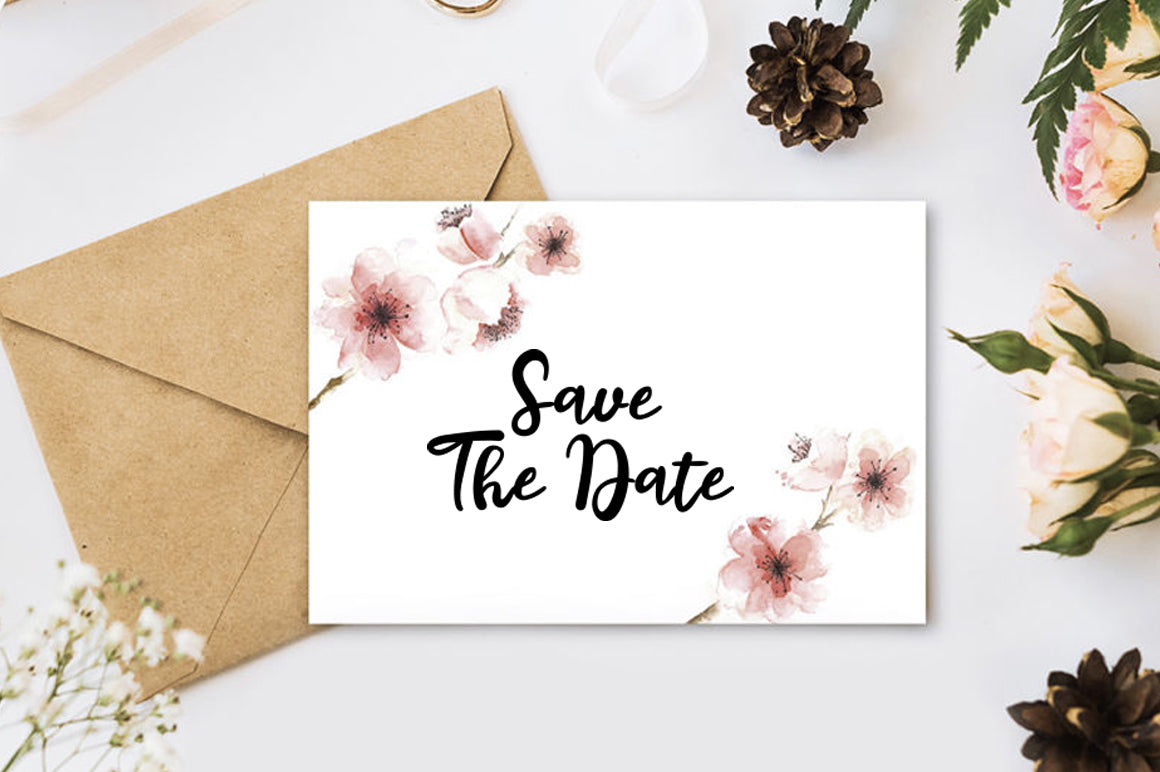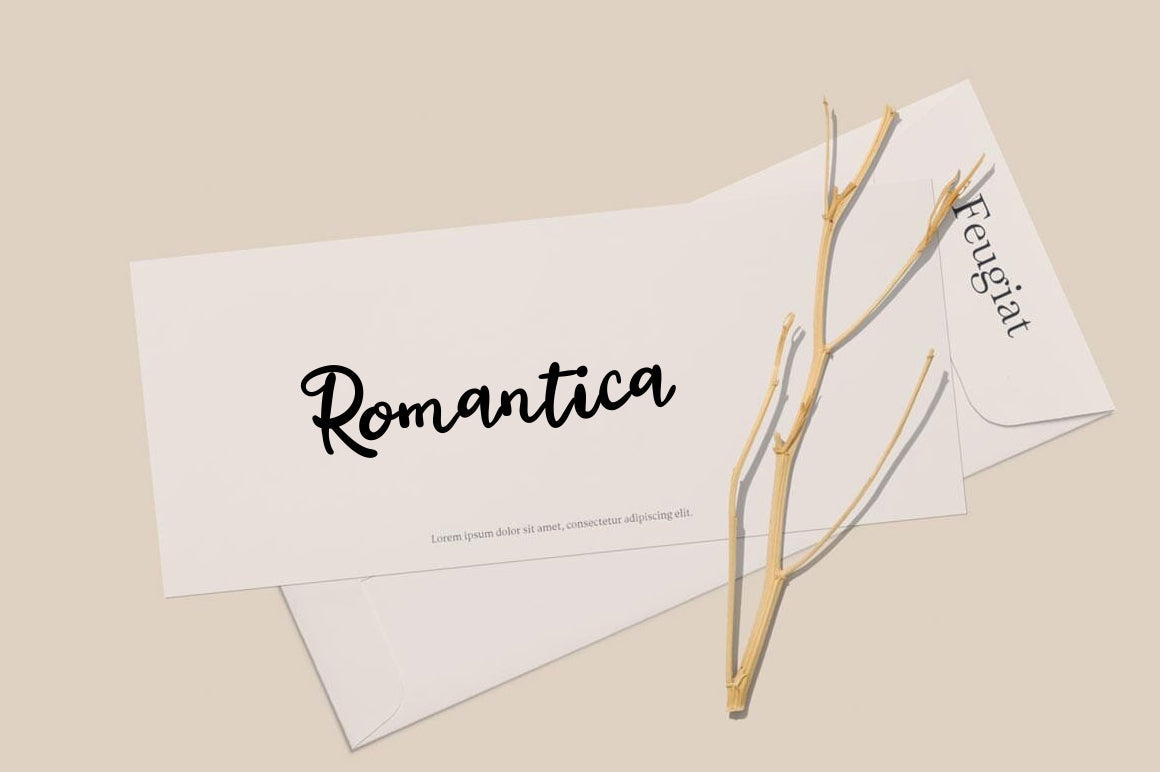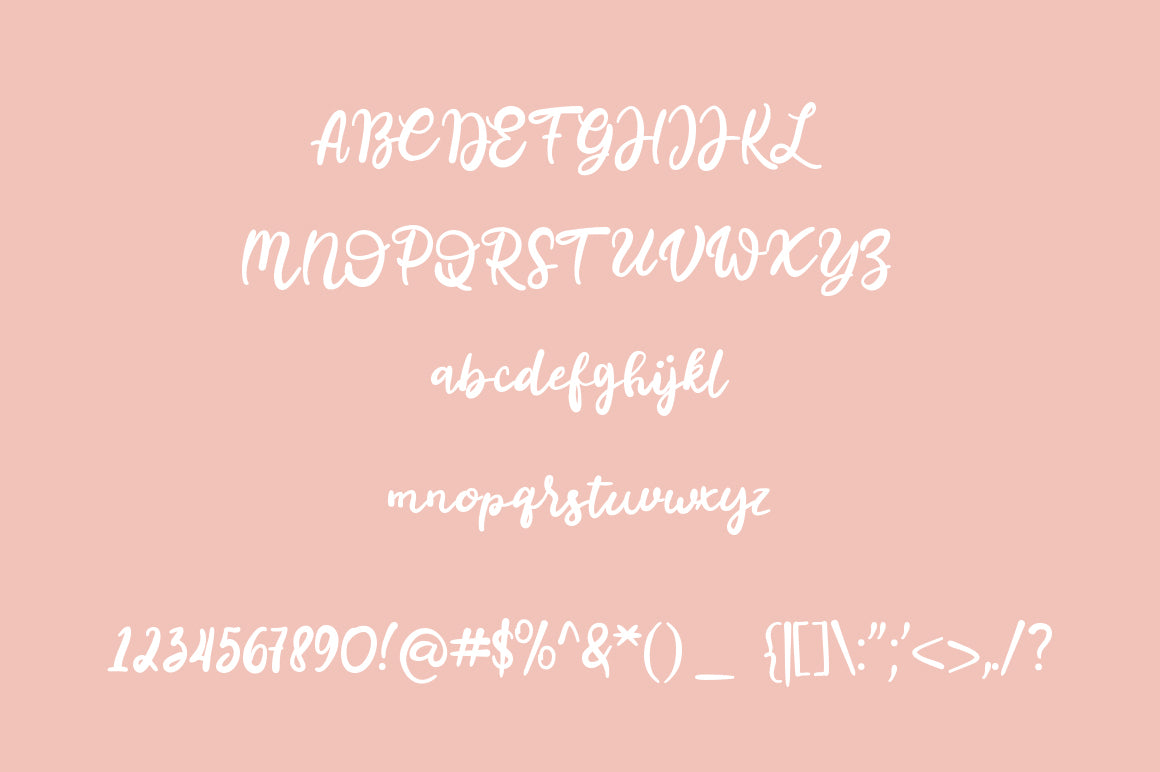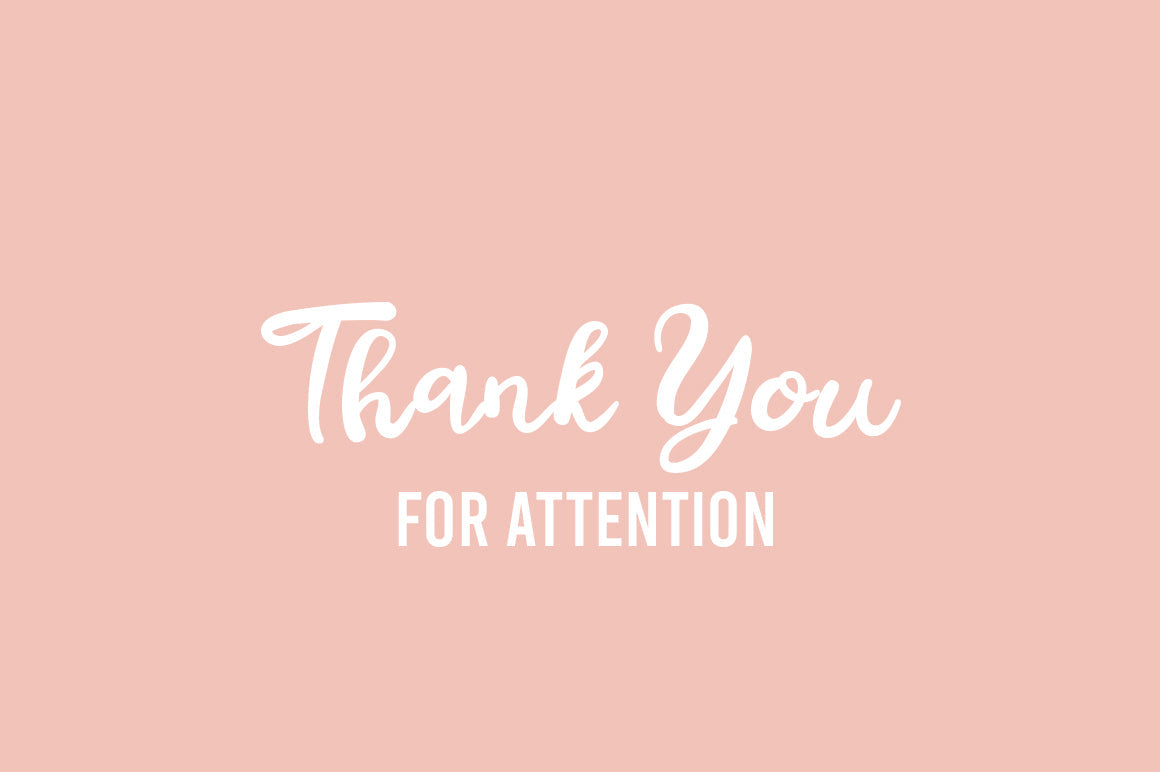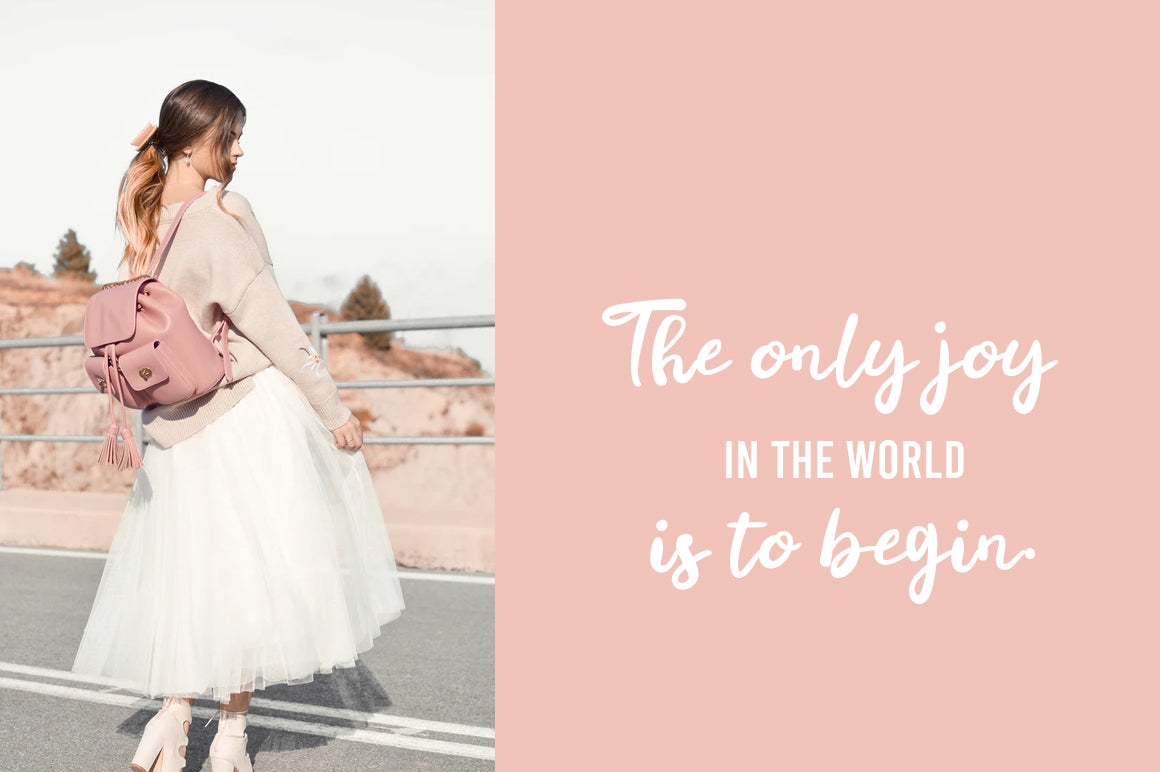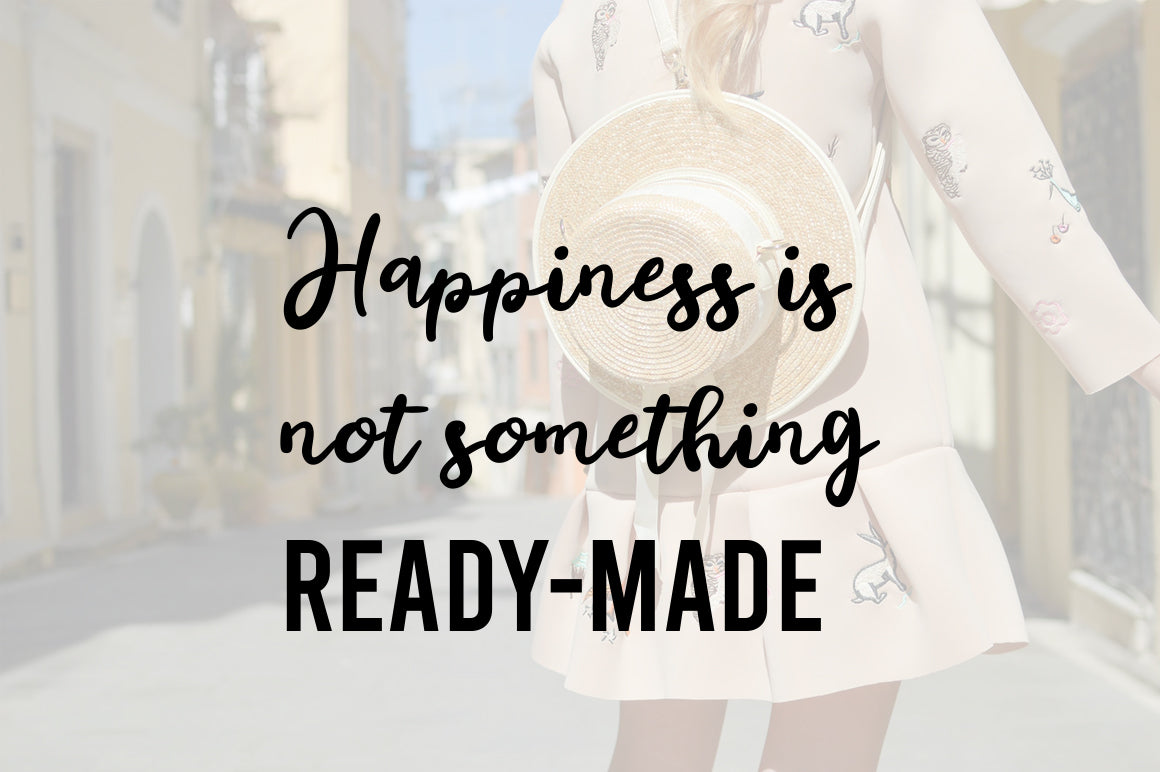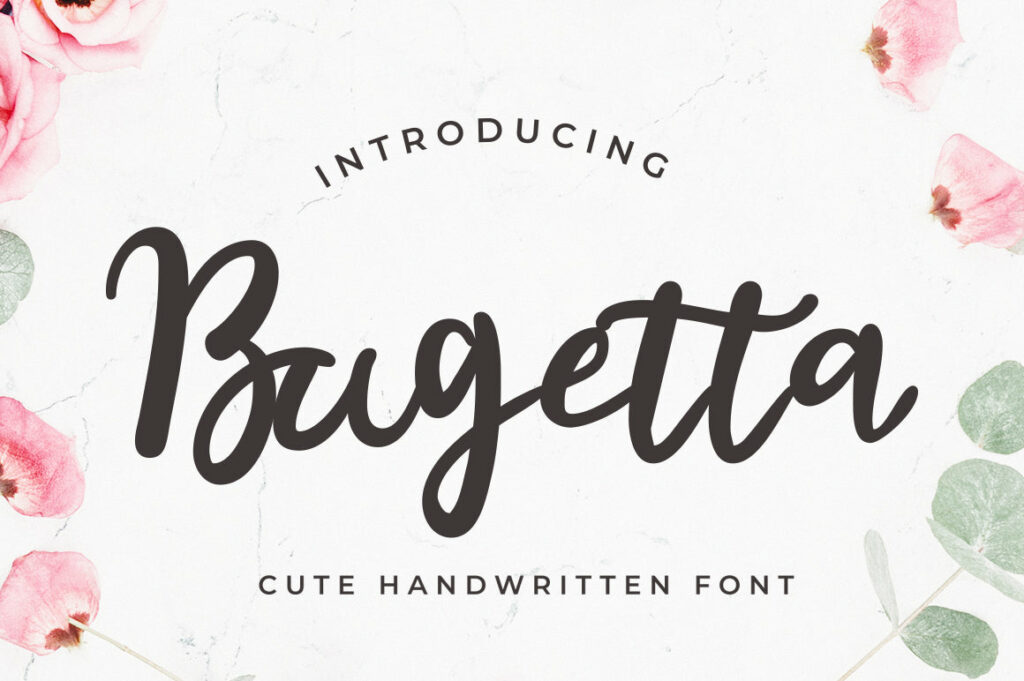
Bugetta – Calligraphy Font
About Bugetta – Calligraphy Font
Bugetta font is a flowing handwritten font, described by an elegant touch, perfect for your favorite projects. Fall in love with its incredibly distinct and timeless style and use it to create spectacular designs! It easily cooperating together For Magazine, Movies, or Book Titles. For Photography, Wedding Invitation, Restaurant Menu or T-shirt Design. For Flyers, Banner Ads, web and printing. From Food and Fashion to a Cosmetics product You WIll Get : Zip file containing: either a OTF and TTF files Font Features : Web font file (.WOFF) Uppercase + Lowercase Letters Numbers + Punctuation Ligature Feature OpenType features Multilingual support Compatible with  Adobe Illustrator, Adobe Photoshop, Adobe Indesign, Word, Corel draw, inkscape Silhouette Studio, Cricut Design Space, Scan N Cut, and other cutting and design programs Any questions? feel free to send us a message. Have a great day !